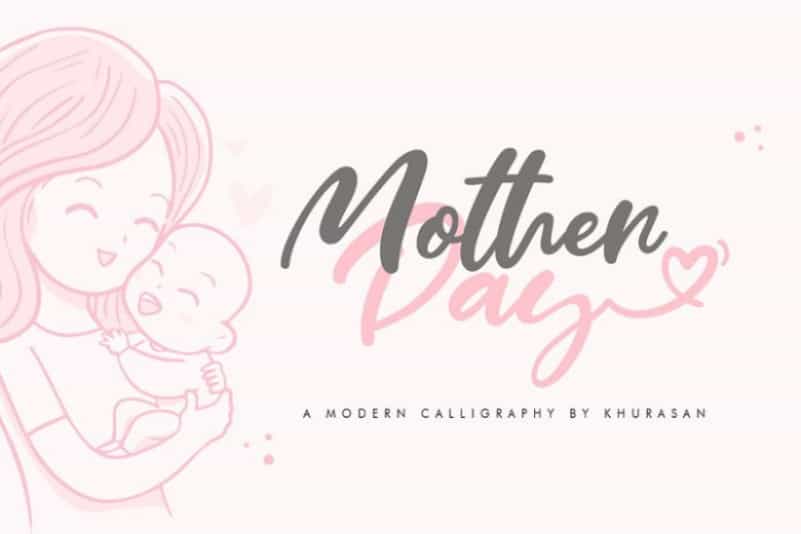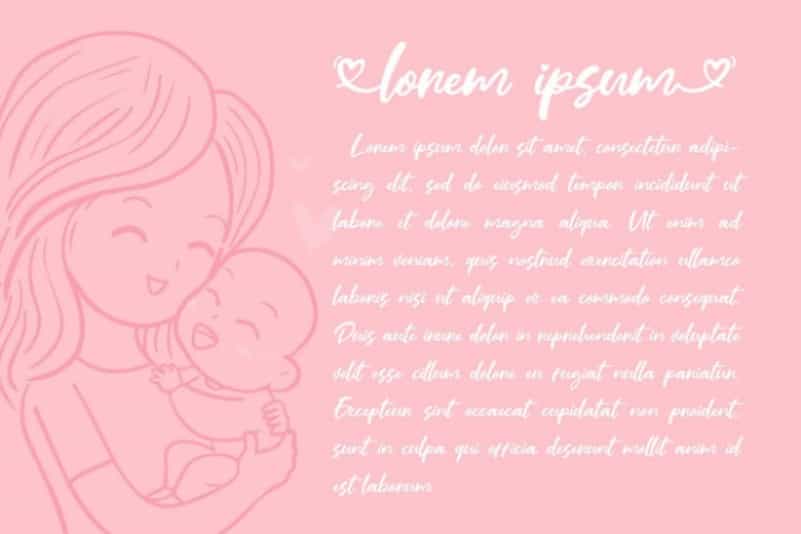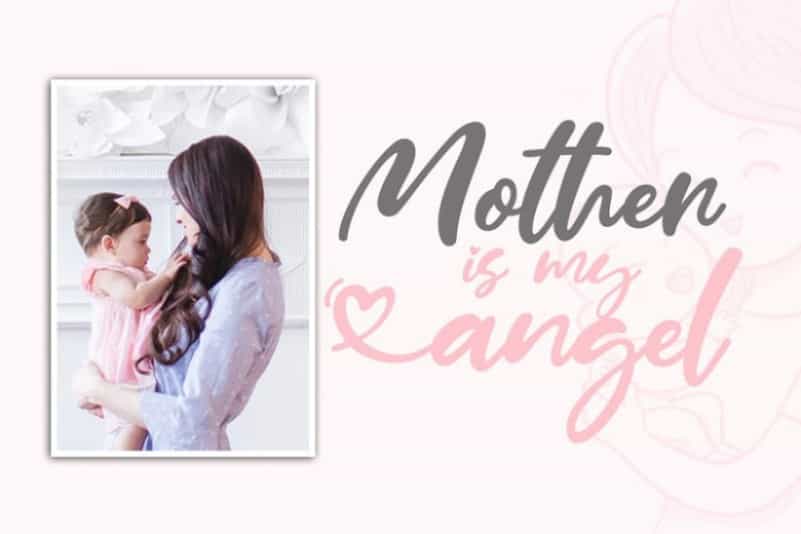
Discover Mother Day Script Font, part of the Calligraphy Display collection—a versatile and unique font perfect for adding a personal touch to your projects. Download it for free and enjoy crafting designs with style, from invitations to social media posts. This font is available exclusively for personal use, giving you the freedom to create without limits. Unlock your creativity with Mother Day Script Font today!
Mother Day Font introducing. It’s designed and shared by khurasan. Mother Day Font a modern script typeface and cheerful theme for your fun project. Mother Day display font is very suitable to be applied in various formal forms such as invitations, labels, restaurant menus, logos, fashion, makeup, stationery, novels, magazines, books, pride greeting cards as well as weddings, packaging, labels, and also suitable for all forms of advertising.